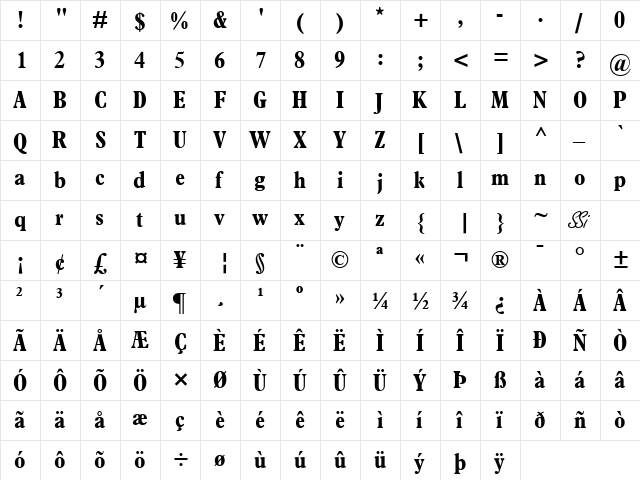
Terminus Black Condensed SSi Bold Condensed Font Preview
Design Context for Terminus Black Condensed SSi Typeface
Terminus Black Condensed SSi takes a measured approach to typography — its balanced proportions and neutral character make it a reliable workhorse for both digital and print work. The heavy weight commands attention and anchors typographic hierarchies. Its narrow stance lets it pack a punch even in space-constrained designs.